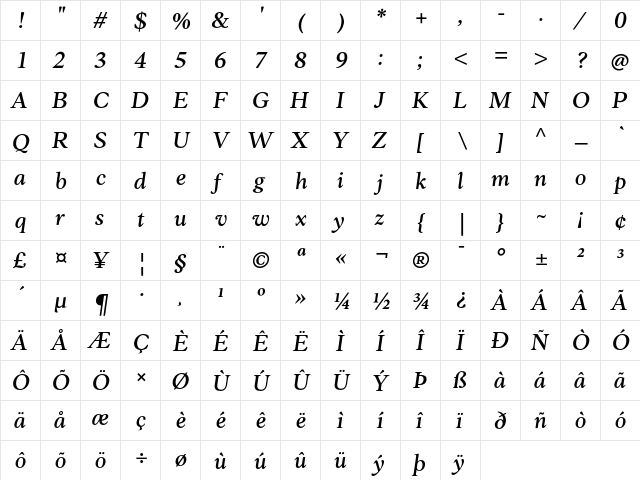
Anko Personal Use Medium Italic
| Designer | Eko Bimantara |
Design Context for Anko Personal Use Typeface
Anko Personal Use is a composed and adaptable typeface that performs quietly and consistently across a wide range of design contexts. Its italic angle brings a sense of urgency and motion to the letterforms.
Pro Tip: Use Anko Personal Use for emphasis, pull quotes, and subheadings where its slanted energy can add rhythm to the layout.